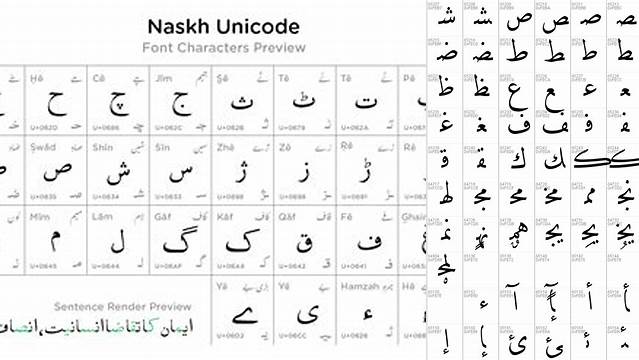
Are you looking to download Naskh fonts for free? You've come to the right place! The Naskh script, a cornerstone of Arabic calligraphy, is celebrated for its elegance and legibility. This makes it a popular choice for a wide range of applications, from traditional texts to modern designs. In this comprehensive guide, we'll delve into the world of Naskh fonts, exploring their history, characteristics, and where you can find them for free. We'll also discuss the importance of understanding licensing when using fonts and provide tips for choosing the right Naskh font for your project. So, whether you're a designer, student, or simply an enthusiast of Arabic calligraphy, this article will equip you with the knowledge you need to find and use Naskh fonts effectively.
What is Naskh Font?
Let's dive into the heart of the matter: what exactly is a Naskh font? Naskh is one of the primary typefaces of Arabic calligraphy, renowned for its clear, rounded forms and its emphasis on horizontal strokes. It's considered one of the most legible Arabic scripts, making it the go-to choice for printed materials, including books, newspapers, and digital text. Naskh's simplicity and clarity have also made it a popular script for Quranic text, where readability is paramount. But its influence extends beyond religious texts; you'll find Naskh used in a myriad of contexts, from branding and advertising to website design and UI elements. The beauty of Naskh lies in its balance: it's both aesthetically pleasing and highly functional. Its consistent letterforms and distinct shapes make it easy to read, even at smaller sizes. This is in contrast to some other Arabic scripts that, while visually stunning, can be more challenging to decipher. So, when you're thinking about using an Arabic font for a project, consider Naskh if you need a typeface that's both beautiful and easily readable. Its versatility makes it a perfect fit for a wide range of applications, ensuring your message is conveyed clearly and elegantly. Naskh truly bridges the gap between artistic expression and practical communication. Its historical significance coupled with its modern-day relevance makes it a timeless choice for anyone working with the Arabic language.
History and Evolution of Naskh Script
The history of the Naskh script is a fascinating journey through centuries of artistic and cultural development. Its origins can be traced back to the early days of Islam, with its formalization attributed to the renowned calligrapher Ibn Muqla in the 10th century. Ibn Muqla, a vizier in the Abbasid court, is credited with establishing the proportional system that defines Naskh's elegant and balanced forms. This standardization was a crucial step in Naskh's rise to prominence, making it easier to reproduce and teach. Over time, Naskh evolved and diversified, with different regional styles and variations emerging. Ottoman calligraphers, for example, developed their own distinct interpretations of Naskh, often incorporating more elaborate flourishes and embellishments. Despite these regional variations, the core principles of Naskh – its clarity, legibility, and rounded forms – remained constant. The advent of printing in the Arab world further cemented Naskh's position as the dominant script. Its clean lines and consistent letterforms made it ideal for typesetting, and it quickly became the standard typeface for printed books and newspapers. In the digital age, Naskh continues to be a popular choice for Arabic typography. Numerous digital fonts have been created based on Naskh principles, ensuring its enduring relevance in the 21st century. Understanding the history and evolution of Naskh gives us a deeper appreciation for its enduring appeal. It's a script that has adapted and thrived over centuries, a testament to its inherent beauty and functionality. When you choose a Naskh font for your project, you're not just selecting a typeface; you're connecting with a rich artistic heritage that spans generations.
Key Characteristics of Naskh Font
Understanding the key characteristics of the Naskh font is crucial for appreciating its unique appeal and effectively utilizing it in your designs. At its core, Naskh is defined by its simplicity and legibility. The letterforms are generally rounded and clear, with a strong emphasis on horizontal strokes. This creates a sense of balance and rhythm that makes it easy for the eye to follow the text. One of the defining features of Naskh is its consistent letter height and spacing. This uniformity contributes to its overall readability, especially in longer texts. Unlike some other Arabic scripts that can have dramatic variations in letter size and shape, Naskh maintains a more even appearance. Another important characteristic is the absence of excessive ornamentation. While Naskh can be embellished with decorative elements, its fundamental form is clean and unadorned. This makes it a versatile choice for a wide range of applications, from formal documents to contemporary designs. The diacritical marks, which are essential for indicating vowels and other phonetic nuances in Arabic, are also carefully integrated into the Naskh script. They are positioned in a way that complements the letterforms without overwhelming them, ensuring that the text remains legible. In comparison to other Arabic scripts like Kufic or Thuluth, Naskh is generally considered more approachable and less stylized. Its straightforward nature makes it an excellent choice for body text, where clarity is paramount. However, it can also be used effectively for headings and display purposes, especially when paired with a complementary typeface. When you're selecting a Naskh font, pay attention to these key characteristics to ensure it aligns with the tone and purpose of your project. Its legibility, simplicity, and balanced forms make it a timeless choice for anyone working with the Arabic language.
How to Choose the Right Naskh Font
Choosing the right Naskh font can feel overwhelming with so many options available. But don't worry, we're here to break it down and make the process easier. The key to selecting the perfect Naskh font lies in understanding your project's specific needs and the message you want to convey. First, consider the context in which the font will be used. Is it for a formal document, a website, a logo, or something else? Different applications call for different styles of Naskh. For example, if you're designing a website, you'll want to choose a Naskh font that is optimized for screen display and renders well at various sizes. This means looking for fonts with clear, crisp letterforms and good spacing. For printed materials, you might have more flexibility in terms of stylistic choices, but legibility should still be a top priority. Think about the overall tone and aesthetic you're aiming for. Naskh fonts can range from classic and traditional to modern and contemporary. Some Naskh fonts have a more calligraphic feel, with elegant curves and flourishes, while others are more streamlined and minimalist. The font you choose should align with the overall design and the message you're trying to communicate. Another important factor to consider is the font's character set. Does it include all the necessary characters and diacritics for the Arabic language you're using? Some Naskh fonts may have limited character sets, which can be problematic if you need to typeset complex text. It's also a good idea to test the font at different sizes and in different contexts to ensure it looks good and remains legible. Try setting a paragraph of text in the font and see how it reads. Pay attention to the spacing between letters and words, and make sure the diacritics are clear and don't interfere with the letterforms. Finally, don't be afraid to experiment and try out different Naskh fonts. The best way to find the perfect font is to play around with different options and see what works best for your project. With a little bit of research and experimentation, you'll be able to choose a Naskh font that enhances your design and communicates your message effectively.
Factors to Consider When Selecting a Naskh Font
When you're on the hunt for the perfect Naskh font, it's not just about picking the prettiest one. Several key factors come into play to ensure the font you choose is not only visually appealing but also functionally appropriate for your project. Let's break down some essential considerations. First and foremost, think about the legibility of the font. Naskh is known for its clarity, but variations in design can impact how easily the text can be read. Consider the font's x-height (the height of the lowercase letters), the thickness of the strokes, and the spacing between letters and words. A font with a good x-height, consistent stroke weight, and adequate spacing will be more legible, especially in longer blocks of text. The intended use of the font is another crucial factor. Will it be used for body text, headings, or display purposes? A Naskh font that works well for body text might not be the best choice for a large, attention-grabbing headline. For body text, prioritize legibility and readability. For headings and display purposes, you might have more leeway to choose a more stylized or decorative Naskh font. The overall tone and style of your project should also guide your font selection. Is your project formal or informal? Traditional or modern? The Naskh font you choose should align with the overall aesthetic. A classic Naskh font might be perfect for a traditional project, while a more contemporary Naskh font might be better suited for a modern design. Character support is another essential consideration, particularly if you're working with Arabic text. Make sure the font includes all the necessary characters, diacritics, and ligatures for the language you're using. A font with incomplete character support can lead to rendering issues and make your text look unprofessional. Don't overlook the technical aspects of the font either. Is it available in the formats you need (e.g., OTF, TTF)? Is it optimized for web use? A well-optimized font will render smoothly on different devices and browsers, ensuring a consistent user experience. Finally, consider the font's licensing terms. Make sure you understand how you can legally use the font, especially if you're working on a commercial project. By carefully considering these factors, you can select a Naskh font that not only looks beautiful but also meets the functional requirements of your project.
Tips for Using Naskh Fonts Effectively in Design
So, you've found the perfect Naskh font – awesome! But the journey doesn't end there. Knowing how to use Naskh fonts effectively in your designs is key to creating visually stunning and impactful projects. Let's dive into some tips and tricks to help you make the most of this elegant script. First, pay close attention to kerning and tracking. Kerning refers to the spacing between individual letters, while tracking refers to the overall spacing between all letters in a word or phrase. Naskh fonts, like any typeface, can benefit from careful kerning and tracking adjustments to improve legibility and visual appeal. Too little spacing can make the text look cramped, while too much spacing can make it feel disjointed. Experiment with different kerning and tracking settings until you achieve a balanced and harmonious look. Leading, or line spacing, is another crucial element to consider. Adequate leading is essential for readability, especially in longer blocks of text. As a general rule, the leading should be slightly larger than the font size. However, the optimal leading can vary depending on the specific Naskh font and the overall design. Think about contrast when pairing Naskh with other fonts. Naskh is a versatile script, but it's important to choose a complementary typeface that doesn't clash with its aesthetic. A good approach is to pair Naskh with a simple, clean sans-serif font for body text or headings. This creates a visual hierarchy and ensures that the Naskh font remains the focal point. Consider the cultural context of your project. Naskh has deep roots in Islamic culture and tradition, so it's important to use it respectfully and appropriately. Avoid using Naskh in designs that could be considered offensive or culturally insensitive. When working with Arabic text, pay attention to the directionality of the script. Arabic is written from right to left, so ensure that your text is properly aligned and formatted. Most design software offers options for right-to-left text input and formatting. Finally, don't be afraid to experiment and break the rules. Design is a creative process, and the best way to learn how to use Naskh fonts effectively is to try different things and see what works. With these tips in mind, you'll be well-equipped to create stunning designs using the timeless elegance of Naskh.
In conclusion, downloading and using Naskh fonts for free is entirely possible with the plethora of resources available online. This elegant script, steeped in history and renowned for its legibility, can add a touch of sophistication to a wide range of design projects. We've explored the essence of Naskh, its historical significance, and the key characteristics that define its beauty. We've also navigated the digital landscape to pinpoint reputable websites where you can find free Naskh fonts, emphasizing the importance of understanding font licensing to ensure legal and ethical usage. Choosing the right Naskh font involves careful consideration of your project's specific needs, the desired tone, and the overall aesthetic. By paying attention to factors like legibility, character support, and technical aspects, you can select a font that perfectly complements your design. Furthermore, we've shared practical tips for effectively incorporating Naskh fonts into your designs, from adjusting kerning and leading to creating visual contrast and respecting cultural context. Remember, the key to mastering Naskh typography lies in experimentation and a keen eye for detail. So, go ahead, explore the world of Naskh fonts, and unleash your creativity! With the knowledge and resources you've gained from this guide, you're well-equipped to create stunning designs that showcase the timeless beauty and elegance of this remarkable script.